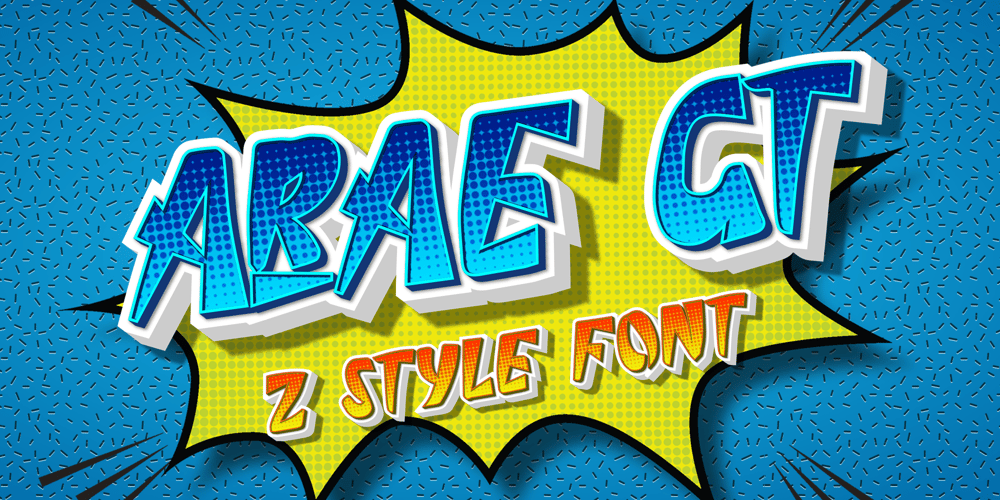
Arae GT Font Family was designed by Amrullah Medan, Amrullah and published by Ably Creative. Arae GT contains 2 styles and family package options. Arae GT is all caps font created by the ably creative team, inspired by the look of comics and Japanese written text, Arae GT comes in regular and shadow line styles and comes with ligatures and a simple look, making this font very easy to use for your design needs. Arae GT is very suitable for text on comics. cover, company logo, unique and funny qoute, branding t-shirts, bags and so on. enjoy imagining designs.